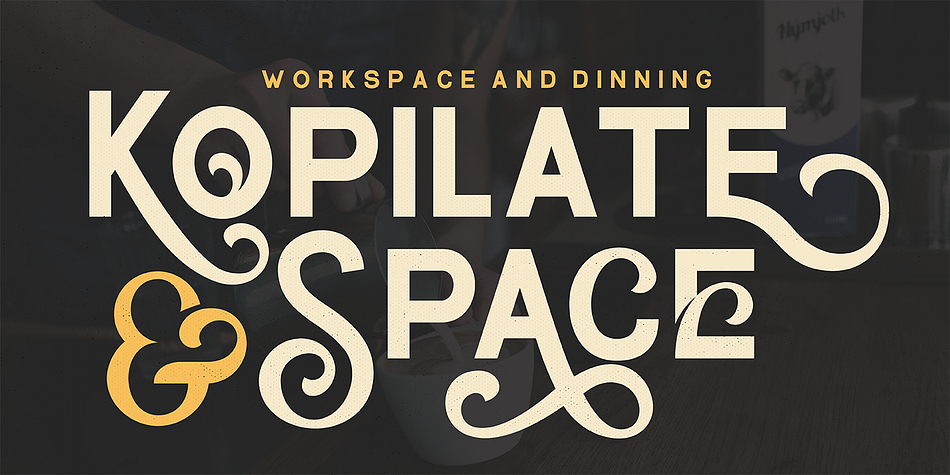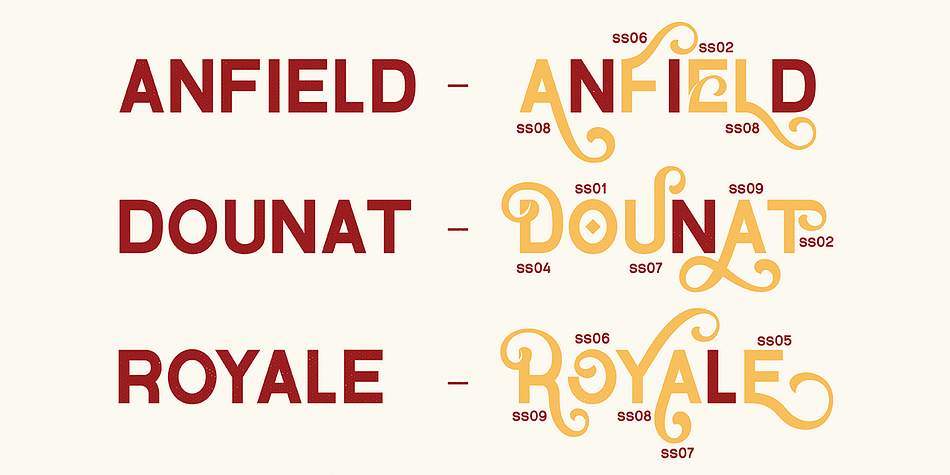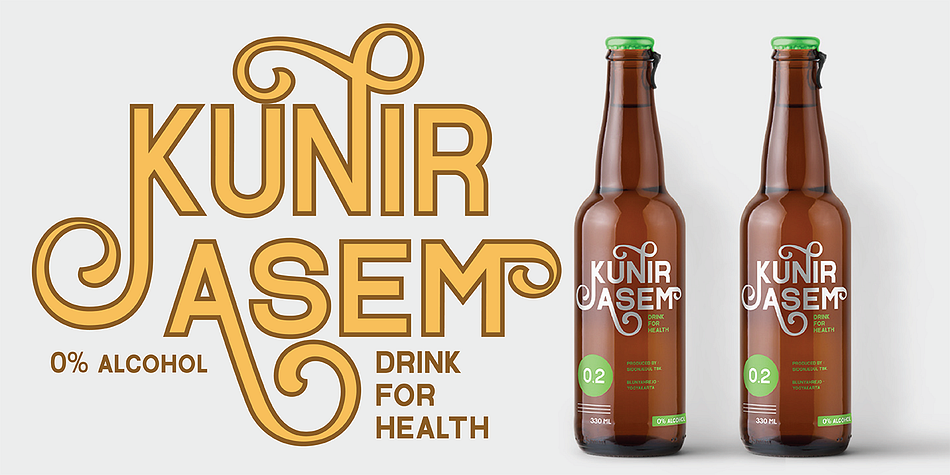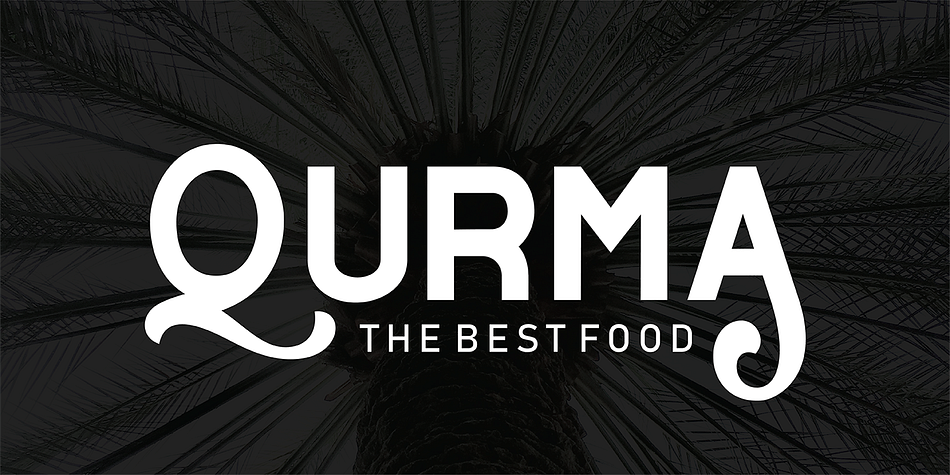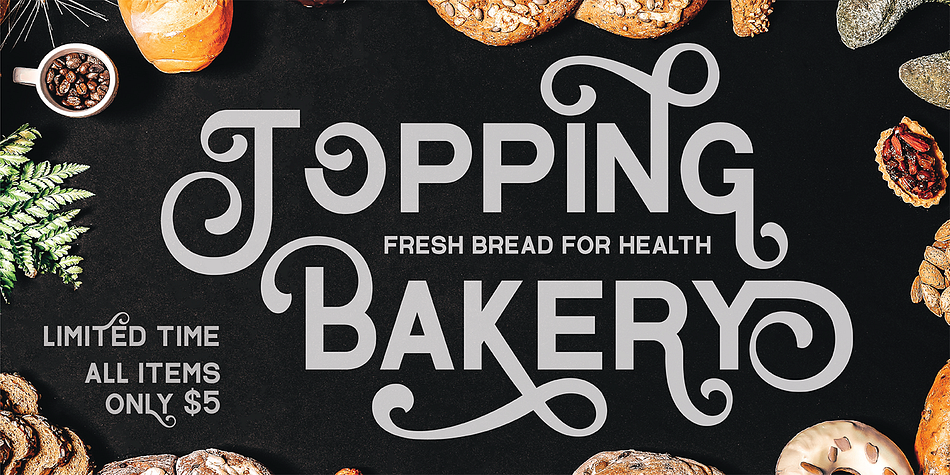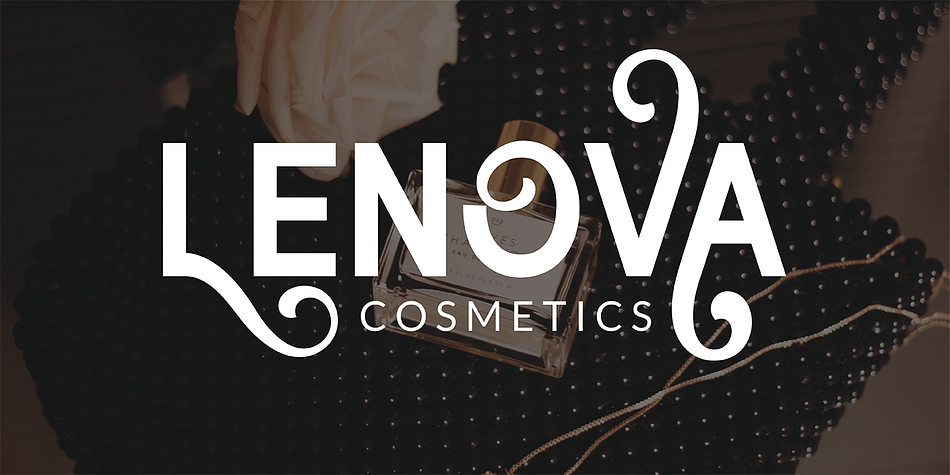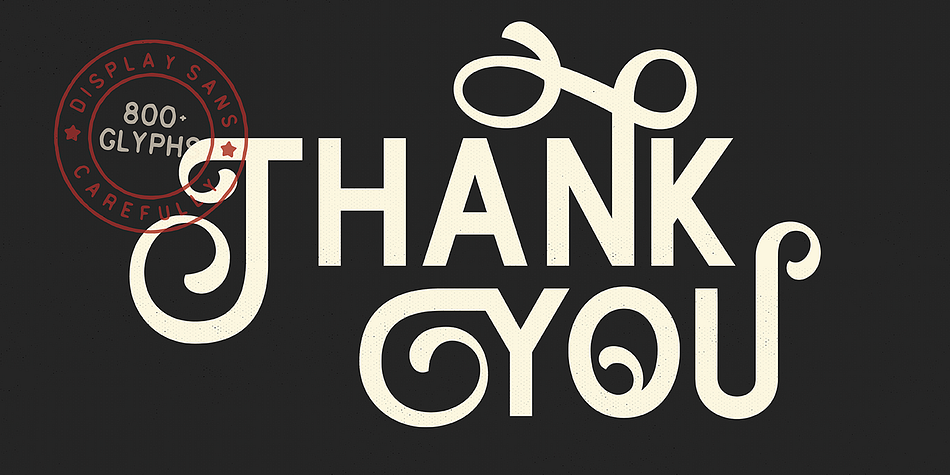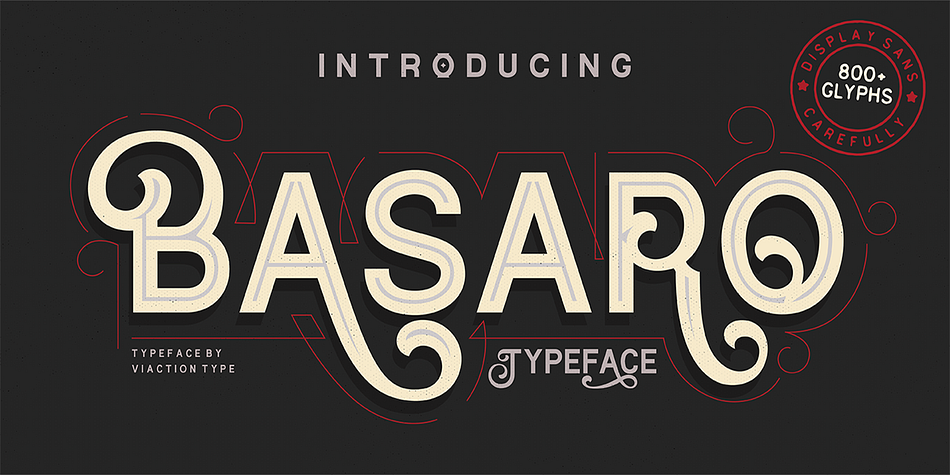
BASARO
Designed by Lukman Hidayat, BASARO is a display sans font family. This typeface has two styles and was published by Viactiontype Studio.
Basaro Typeface is all caps display sans serif with many letter combinations according to creation. This font is inspired by an elegant & classic style with various swash. Equipped with Stylistic Set: ss01 – ss12, 12 alternatives per letter. Very easy to use and perfect for headlines, logos, posters, packaging, T-shirts, postcards and much more.
- 312 Stylistic Alternates ( ss01 – ss12)